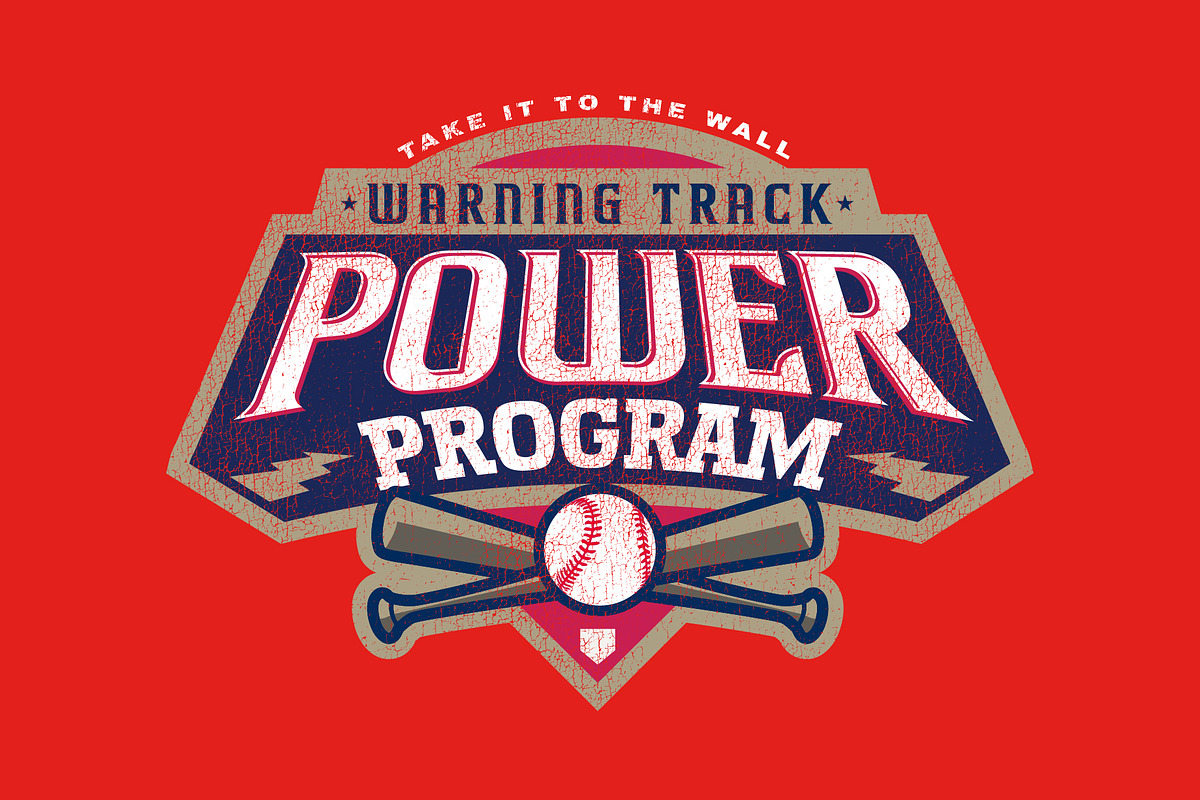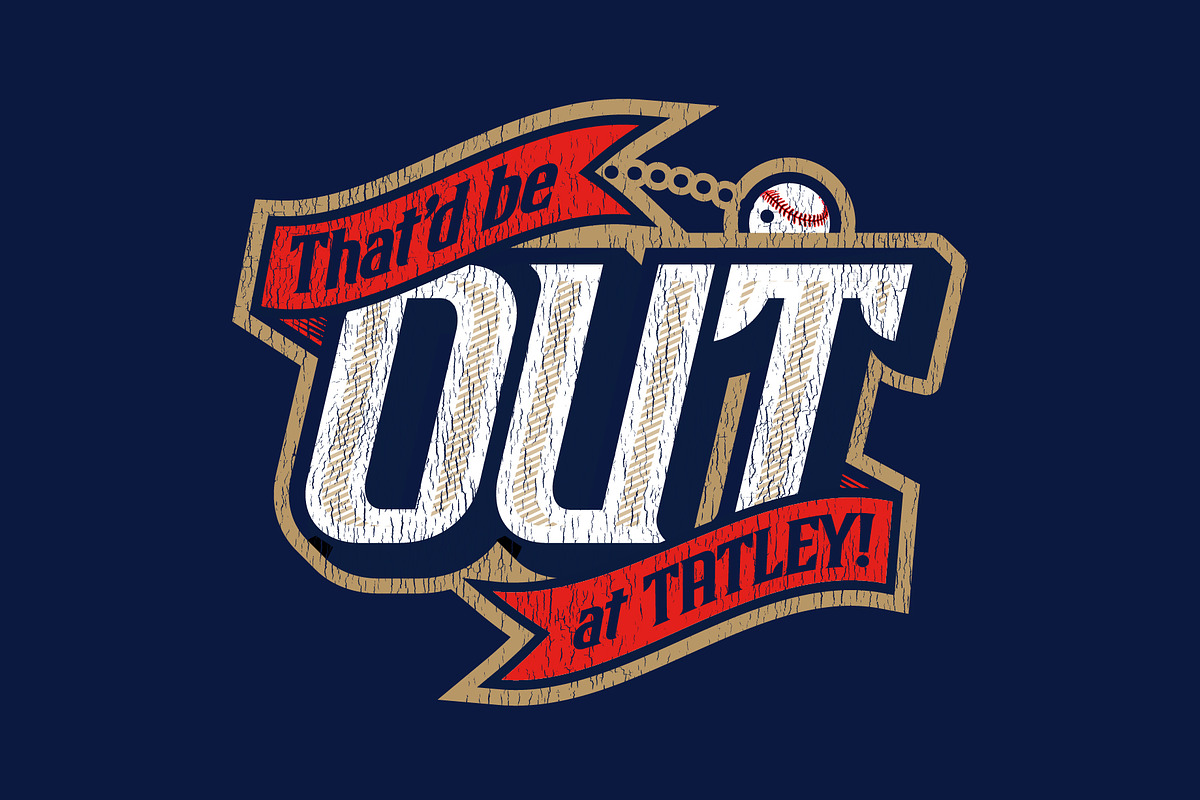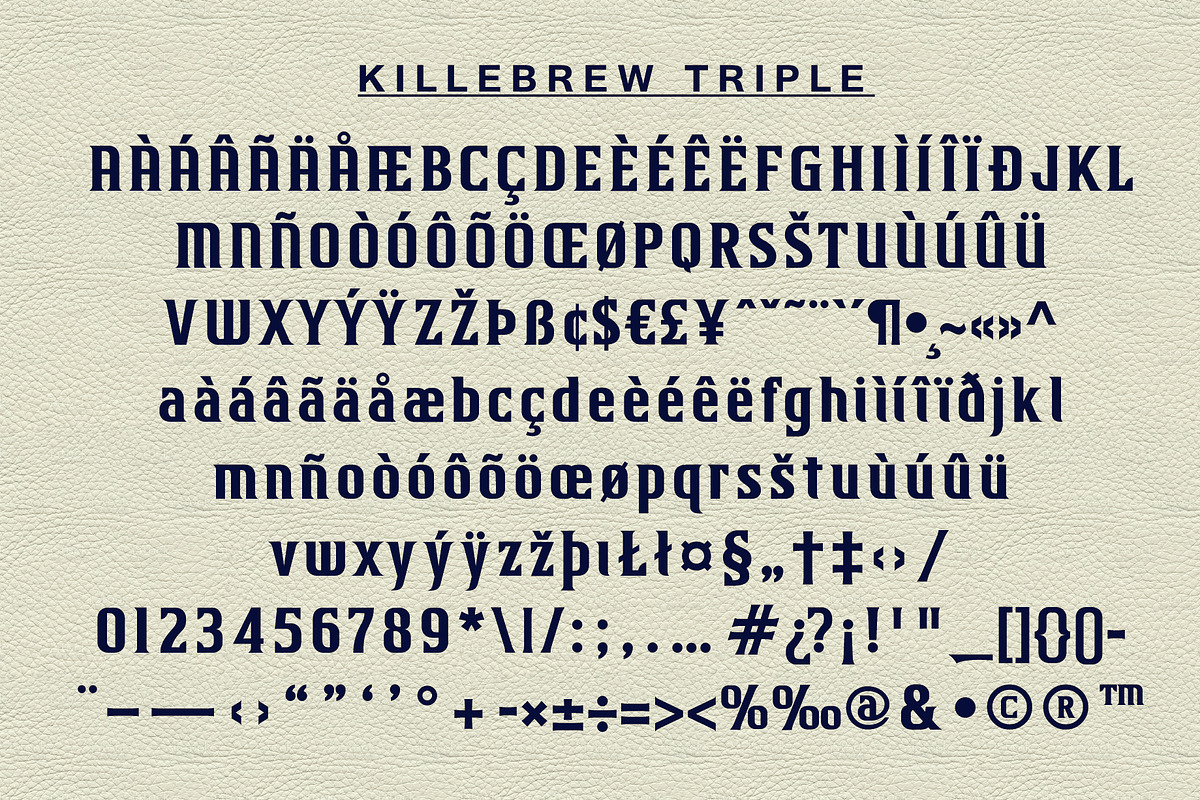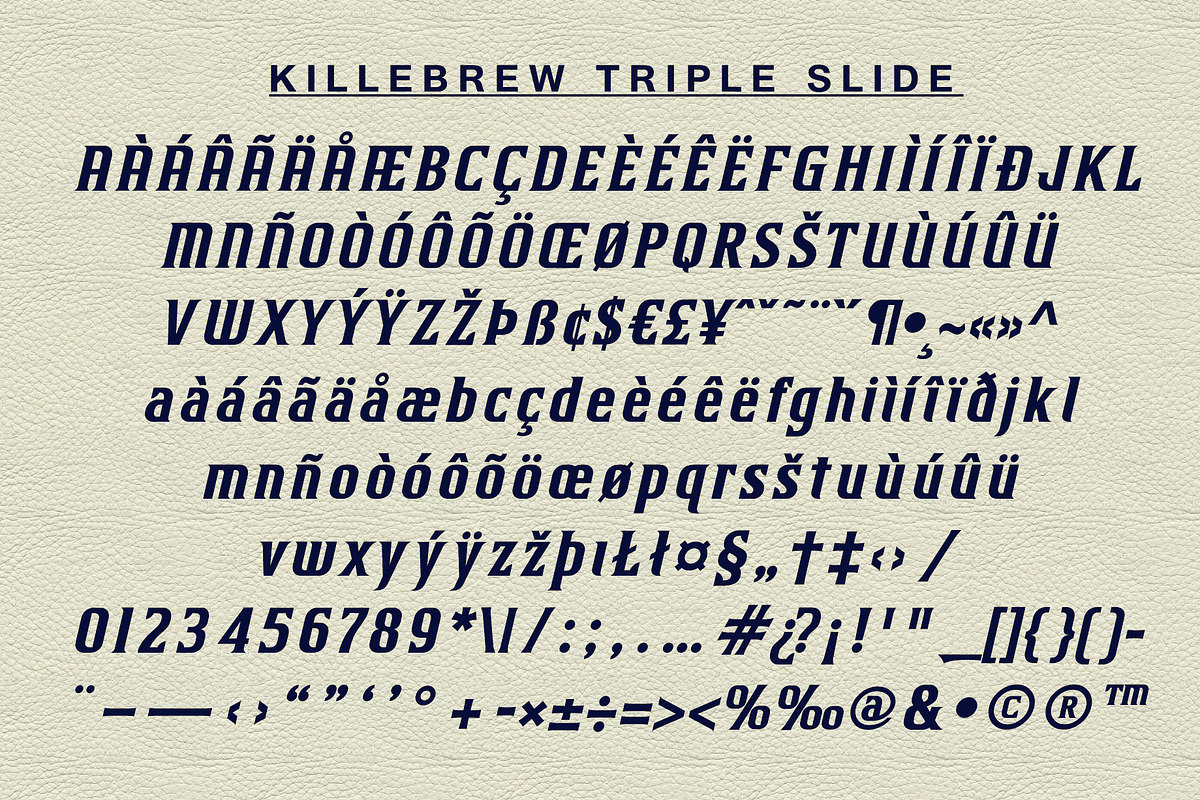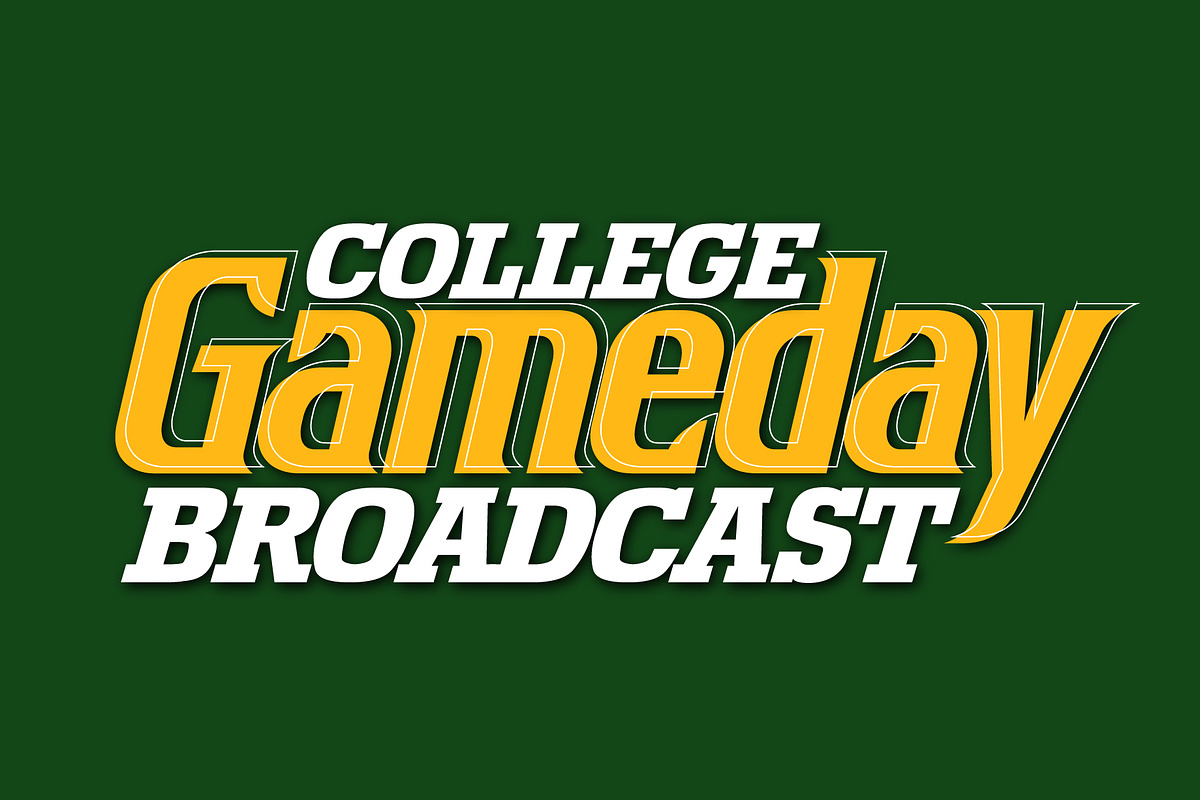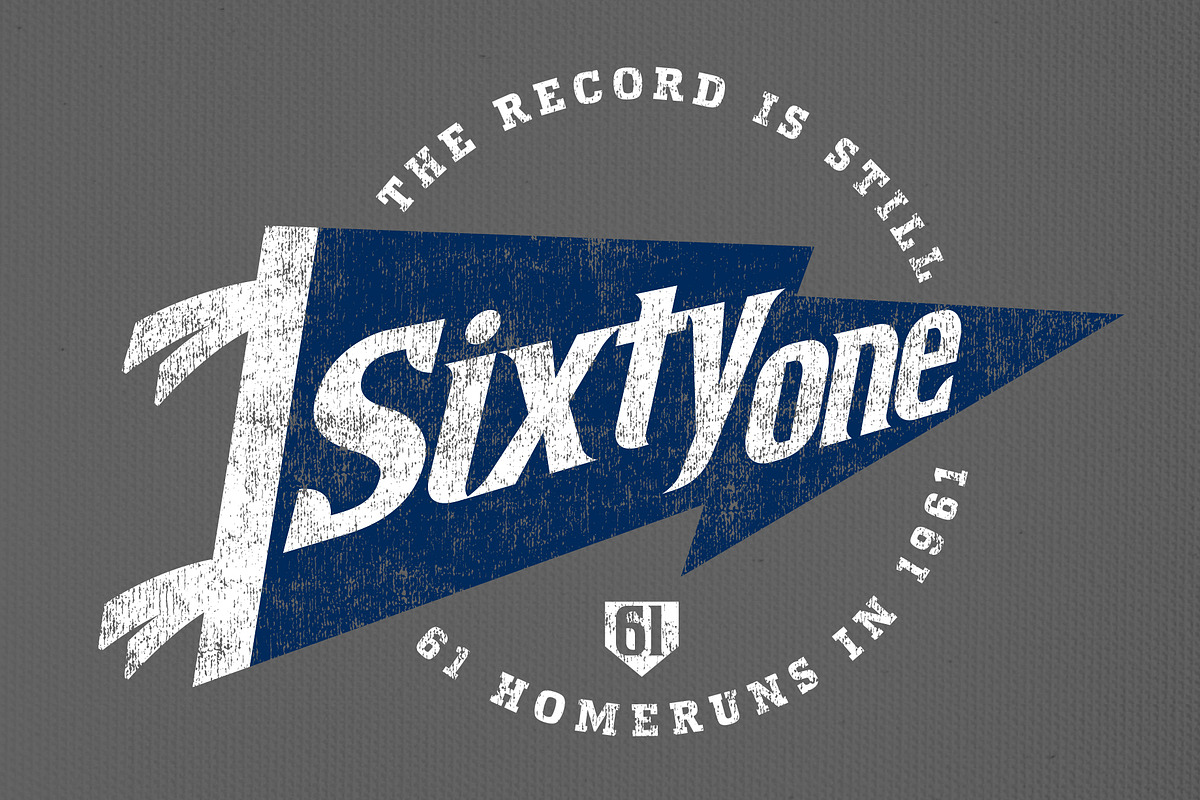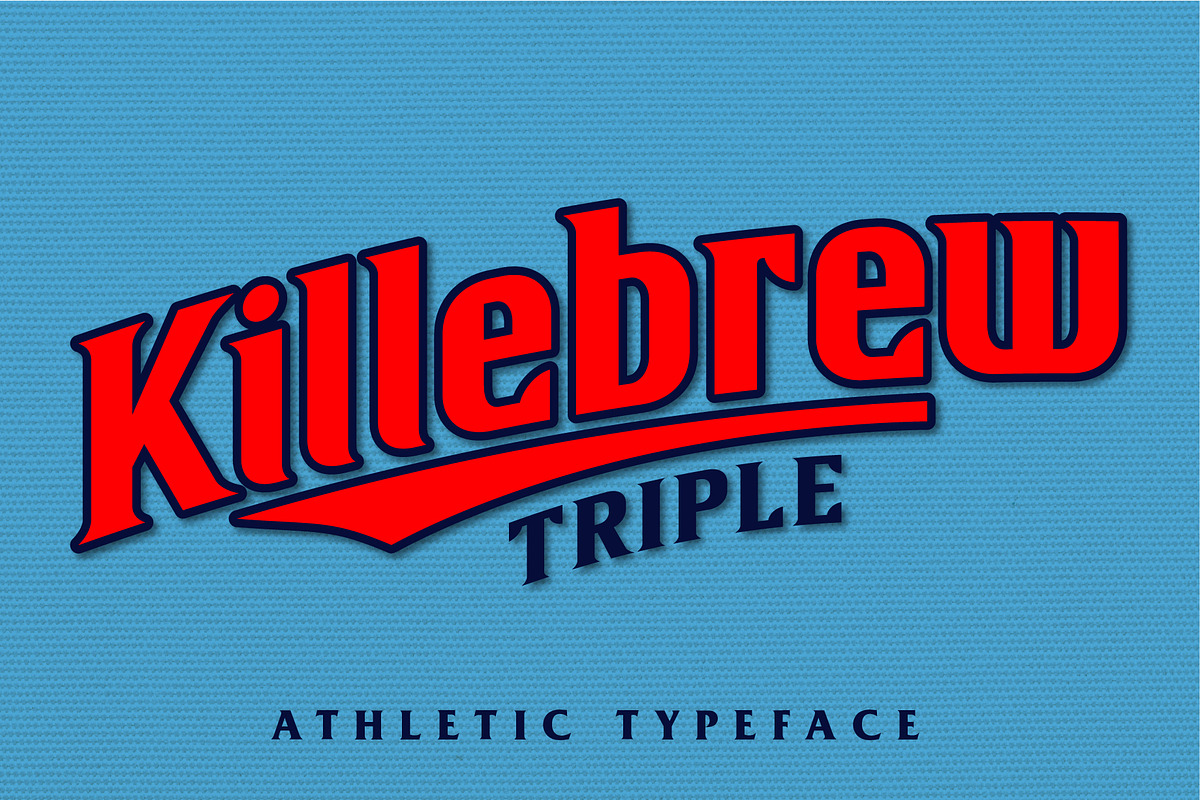
Killebrew Triple | Athletic Typeface
Deep right and off the wall, it's — K I L L E B R E W • T R I P L E — a sure-fire hit for Team Killebrew!
Now batting: Killebrew Triple. Designed with heavier stems and a wider stance, this typeface will power your designs to go the distance. Extra-base hits are all in a day's work for this confident cutter — cranking out logos, posters and t-shirt designs with ease. Lookin' to bring it home? Pinch run with Killebrew Triple Slide — an italic counterpart!
Check out Killebrew Triple's stats:
- TWO type styles – Triple (regular) and Triple Slide (italic)
- Upper (A-Z) and lower case (a-z) characters
- Numbers (0-9)
- Standard punctuation and glyphs
Take your designs deep and bring in the runs with Killebrew Triple!